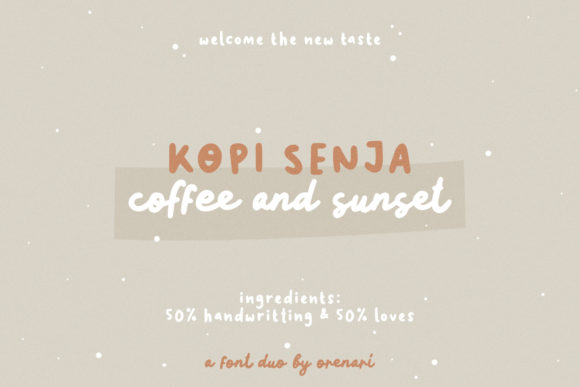
Integrating Kopi Senja into Your Design Projects
The blank canvas is a familiar starting point. On this particular morning, it was a brand board for a new, small-batch candle maker. The client wanted something that felt both artisanal and sophisticated, a visual identity that whispered luxury without shouting it. I knew the typography would be the cornerstone. My usual go-to fonts felt either too rigid or too whimsical. So, I typed “Kopi Senja” into the search bar of my font library, and the project instantly clicked into a new direction.
What Is the Kopi Senja Font and Typeface?
Kopi Senja is an incredibly unique and beautiful duo font display and script. Opening it for the first time, I was struck by its distinct personality. It’s not a single, monolithic typeface but a harmonious pair. The display component offers a clean, confident structure—think of elegant, slightly condensed letterforms with subtle, modern details. The script, however, is where the magic happens. It flows with a natural, almost handwritten grace, but maintains a level of precision that prevents it from feeling casual or messy. Together, they create a visual mood that is simultaneously refined and approachable, a perfect blend of professionalism and creative flair.
Kopi Senja Display Font for Logo Design and Brand Marks
My first practical test was for the logo. A font like Kopi Senja is ideal for this critical task. I started with the business name, a single, evocative word. Using the display font alone gave me a sleek, memorable wordmark. It felt substantial and trustworthy, perfect for a product-based business. Then, I experimented with the script. For a tagline or a secondary element—like “handcrafted in Vermont”—the script font introduced a layer of artistry and personal touch. The true versatility of Kopi Senja shone when I combined them. I used the display font for the primary brand name and the script for a subtle, underline flourish. The result wasn't just a logo; it was a cohesive brand mark with instant character. It conveyed quality and care without needing elaborate illustrations or icons.
Using Kopi Senja for Packaging Design and Product Labels
Once the logo felt right, I moved to packaging mockups. This is where a display font must perform. A premium candle box isn’t a billboard; it’s a small, tactile canvas. The elegant structure of Kopi Senja’s display font ensured the product name remained legible and prominent on a limited space, even at smaller sizes. For the descriptive copy—scents, ingredients, net weight—I paired the display font with a simple, neutral sans-serif. This created a clear visual hierarchy: Kopi Senja commanded attention for the brand, while the supporting typeface handled the practical details. On the label sticker for the candle jar itself, I used the script font sparingly, just for the scent name like “Sandalwood & Oak.” It acted as a beautiful accent, a small moment of luxury that elevated the entire product presentation.
Kopi Senja in Social Media Graphics and Digital Assets
A brand lives digitally, too. For the client’s Instagram graphics and website headers, Kopi Senja continued to prove its worth. In social media posts announcing a new scent, I used the display font for the headline text overlay. Its unique beauty made the posts stand out against the generic feeds, capturing that premium feel. On the website’s hero section, the combination of the bold display font for the main headline and the flowing script for a call-to-action like “Explore the Collection” created an engaging and sophisticated entry point. This duo font approach ensured brand consistency from the physical box to the digital storefront, a key factor in building recognition and trust.
How Kopi Senja Enhances Editorial Design and Printed Materials
Beyond core branding, I explored its use in printed collateral. For a simple flyer or a small brochure explaining the candle-making process, Kopi Senja provided excellent editorial design tools. The display font served for section titles and headers, giving the layout a strong, organized backbone. The script font was perfect for pulling out quotes or highlighting key philosophy statements from the maker, adding a human, narrative element to the factual information. The versatility mentioned in its description—fitting a wide pool of designs—was evident here. It transitioned seamlessly from marketing to more narrative-based materials, elevating the perceived quality of every piece it touched.
Practical Advice for Testing the Kopi Senja Font Family
Before committing any font to a full brand system, I always run practical tests. With Kopi Senja, I mocked up real-world applications: a business card, a shop sign mockup, and a simple invoice header. I checked how the script font looked at very small sizes (on a card footer, for instance) to ensure its details remained crisp and not muddy. I also tested its pairing compatibility. While it stands powerfully alone, I found it pairs beautifully with a classic serif font for longer body text in brochures, or with a minimalist sans-serif for UI elements on a website. This testing phase confirms its role as a robust, commercial font ready for professional client work.
Kopi Senja for Elegant Branding Across Multiple Industries
The candle project was a specific case, but the application of Kopi Senja is far broader. Its mood—that blend of elegance and creativity—makes it a compelling choice for a wide array of businesses. Imagine it on the menu of a local, fine-dining restaurant, where the display font lists the dishes with clarity and the script adds a touch of culinary artistry. Or consider a boutique skincare brand, where the script could beautifully accent ingredient names on a bottle, and the display font solidifies the brand name on the packaging. For a creative studio, this duo font could define its entire identity: the display font for a strong, stable logo, and the script for a dynamic, personal signature on project presentations. This inherent versatility is its greatest asset, allowing it to elevate designs across niches to the highest levels.
In the end, integrating Kopi Senja into my design process wasn't just about adding a new typeface to the toolkit. It was about finding a partner that could carry a brand’s voice from conception to completion. From that first logo draft on a blank brand board to the final mockups of packaging, social assets, and printed materials, it provided consistency, character, and a distinct aesthetic advantage. For any designer, freelancer, or entrepreneur building a visual identity that needs to balance professionalism with unique beauty, exploring this duo font display and script is a step toward creating work that not only looks good but feels coherent and compelling. It’s a font that does the heavy lifting of establishing tone, leaving you free to refine the finer details of the brand story you’re trying to tell.